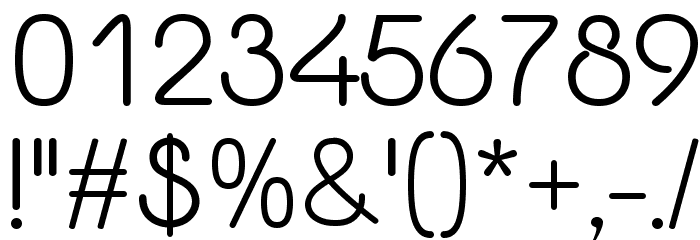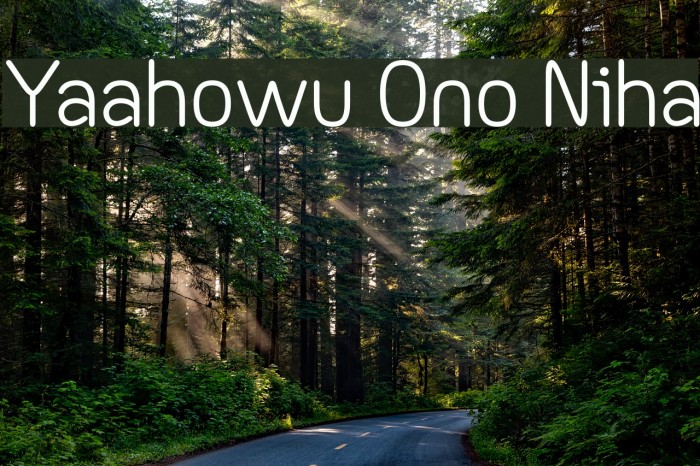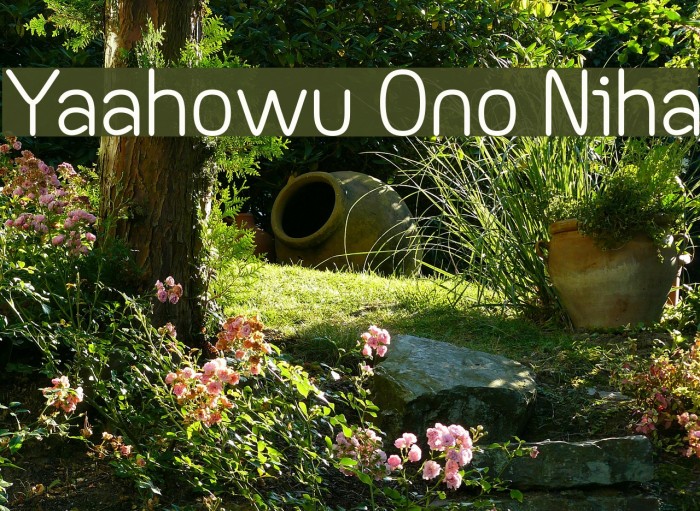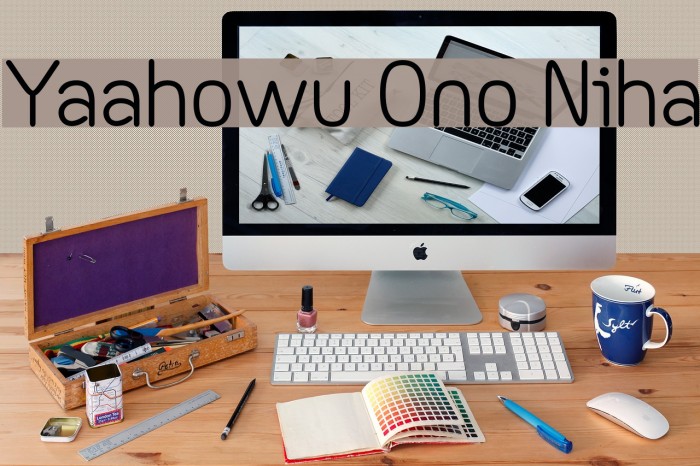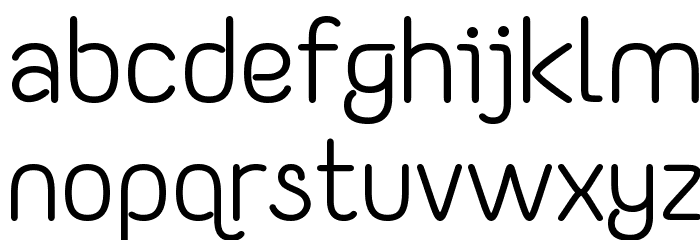
Yaahowu Ono Niha Font
This font features a clean and modern design with rounded edges and a uniform stroke width, giving it a friendly and approachable appearance. The characters are evenly spaced, contributing to its readability. The uppercase and lowercase letters maintain a consistent style, with the lowercase letters slightly smaller in height. The numerals are clear and distinct, matching the overall aesthetic of the alphabet. Special characters are well-integrated, ensuring versatility in various applications. The font's simplicity and clarity make it suitable for both digital and print media.
A modern, rounded font with uniform stroke width and excellent readability.
• Proposed Projects: Ideal for user interfaces, educational materials, children's books, and branding projects that require a friendly and approachable look.